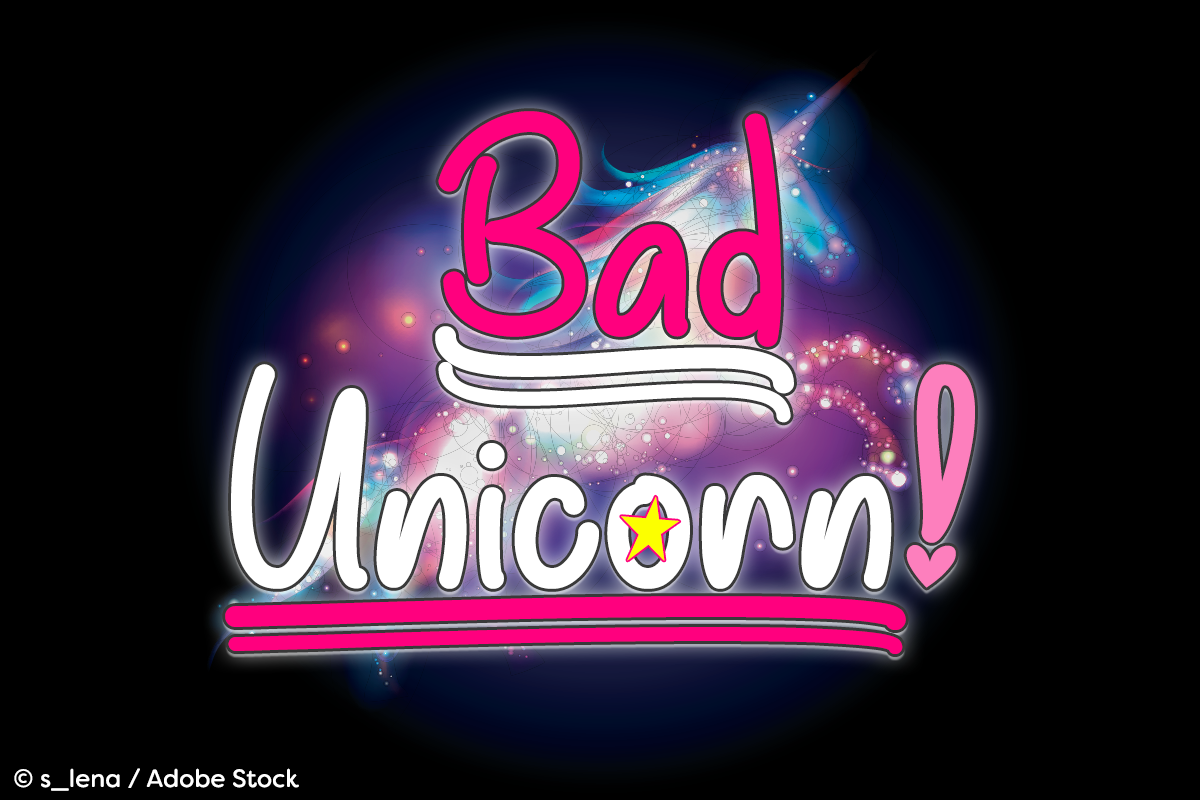
Bad Unicorn is a stylish handwritten font that makes a bold statement!
This font comes with a variety of star and heart symbols, as well as, alternate exclamation points and questions marks (see third poster).
Also included is a two choices of underlines (as seen in the main poster), each coming in 15 different lengths. More lengths can be added at request!